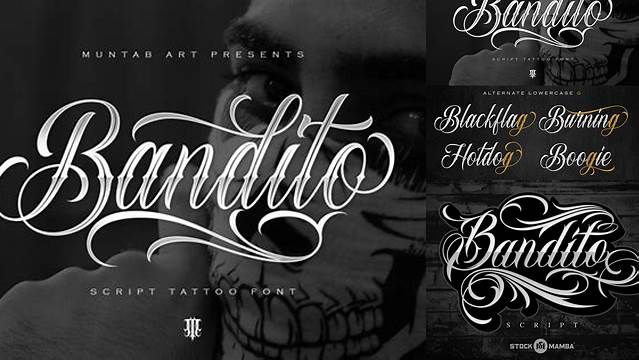
Free Bandito Tattoo Font Generator: Create Your Design
Hey guys! Ready to dive into the awesome world of tattoos, especially the rad Bandito style? If you're looking to create some killer designs, you've come to the right place! We're talking about a free Bandito tattoo font generator, your new best friend for crafting unique and eye-catching tattoo lettering. This guide will walk you through everything you need to know, from what makes Bandito fonts so cool to how to use a generator to bring your ideas to life. Get ready to unleash your inner artist!
H2: What Exactly is a Bandito Tattoo Font?
So, what's the deal with Bandito tattoo fonts? Well, picture this: a style that screams outlaw, rebellion, and a touch of old-school flair. Bandito fonts are all about that edgy, hand-drawn look, often with a bold, slightly rough appearance. They're inspired by the classic lettering found in biker culture, vintage signage, and even the art of graffiti. Think thick lines, sometimes a bit distorted, and a whole lot of attitude. These fonts are designed to make a statement, giving your tattoo a sense of power and individuality. Think of it as the visual equivalent of a roaring motorcycle or a dusty desert road.
Bandito fonts aren't just about aesthetics; they're about conveying a feeling. They often carry a sense of history, reflecting a time when craftsmanship and individuality were highly valued. You'll frequently see them used to represent themes like freedom, defiance, and the untamed spirit. These fonts have a unique ability to make your tattoo look authentic and timeless. Unlike clean, modern fonts, Bandito styles often have imperfections and inconsistencies, which actually enhance their appeal. This adds character and personality to your design, giving it a truly bespoke feel. It's like your tattoo has its own story to tell, with every curve and stroke of the font contributing to the narrative. The best Bandito fonts capture the spirit of the open road, the thrill of adventure, and the raw essence of life, all in a single glance.
Bandito fonts excel at grabbing attention. They’re designed to be bold and easily readable from a distance, so you can be sure that anyone who sees your ink will know exactly what it says, no matter where you are. You’ll find these fonts on everything from motorcycle club emblems to personalized apparel. These fonts are a top choice if you want your tattoo to make a bold statement. They often incorporate stylistic elements such as flourishes, shadows, and variations in line thickness, making them visually dynamic and engaging. Whether you're planning a classic script, a personalized quote, or even a full tattoo design, the right Bandito font can drastically improve the overall look. So, when choosing a Bandito font, look for options that resonate with your personality and the message you want to convey.
H2: Free Bandito Font Generators: Your Design Toolkit
Alright, let's get to the good stuff: free Bandito font generators! These online tools are total game-changers, allowing you to preview and customize Bandito fonts without spending a dime. They're super user-friendly, usually involving just a few clicks to type in your text, choose a font, and tweak the settings to your liking. Think of them as your personal tattoo studio, right at your fingertips. The beauty of these generators is the instant gratification. You get to see your chosen text in a variety of Bandito styles immediately, helping you narrow down the perfect look for your tattoo. Some generators even offer additional features, such as the ability to adjust the size, spacing, and even add effects like shadows or outlines. This customization is key to ensuring that your final design truly reflects your personal style and the specific vibe you're aiming for.
These tools cater to both experienced tattoo enthusiasts and complete beginners. You don't need any design experience to start creating amazing results. Simply enter your desired text, browse through the font options, and see what looks best. You can experiment with different combinations of fonts, sizes, and effects until you achieve a design that perfectly matches your vision. Free Bandito font generators are also a fantastic way to experiment before you commit to a final design. Try out various styles, check how they will look on different body parts, and ensure you find the perfect fit before booking your tattoo appointment. Many generators will allow you to download your design as an image, so you can easily share it with your tattoo artist. This makes the design process more collaborative, ensuring both you and your artist are on the same page. They are also incredibly cost-effective. Instead of spending money on expensive design software or paying a professional, you can create beautiful tattoo designs completely free of charge. It’s an excellent way to explore your creativity without financial risk, and these tools provide an accessible and fun way to get creative.
H3: Top-Rated Free Bandito Font Generator Websites
Okay, guys, let's get down to where the magic happens – top-rated free Bandito font generator websites. There are a ton of options out there, but a few stand out from the crowd due to their user-friendliness, font selection, and customization options. Here are some platforms that consistently deliver great results:
- Font Meme: This is a classic. Font Meme boasts a wide collection of fonts, including some excellent Bandito styles. You can preview your text, adjust sizes, and download your design with ease. They offer a great selection of pre-made Bandito fonts, and a very simple interface. Font Meme is the perfect choice for beginners, but also provides enough depth to let experienced designers get creative.
- DaFont: DaFont is a go-to resource for all things fonts, and their Bandito font selection is amazing. You can browse, download, and preview fonts right on the site. They also have a massive community of users who design and share fonts. This is the place to find a huge variety of Bandito-inspired fonts, and DaFont's user base ensures quality.
- BeFonts: BeFonts is another fantastic option for finding and downloading various fonts. They offer a user-friendly interface and a good selection of Bandito fonts perfect for tattoos. You can easily customize and download your design in a couple of clicks. This site's simplicity is part of its charm, making it easy for anyone to get started.
These are just a few examples, and the best way to find the perfect generator is to explore and find the one that works best for you. These tools will provide the fonts and designs you require to bring your tattoo ideas to life. All are free to use.
H2: Choosing the Perfect Bandito Font for Your Tattoo
So, you're ready to commit – how do you choose the perfect Bandito font for your tattoo? This decision goes way beyond just picking a font that looks cool. It's about finding the font that truly speaks to you and represents the message you want to convey. Consider the following factors:
- Font Style: Bandito fonts come in various styles. Some are thick and bold, while others are more delicate and intricate. Choose a style that matches the overall vibe of your tattoo. If you're going for a strong, masculine look, a bold font might be ideal.
- Readability: Make sure the font is easily readable, especially if your tattoo will be on a prominent part of your body. A complex font might look cool, but if people can't read it, it defeats the purpose. Make sure the text is readable from a distance.
- Size and Placement: Think about where the tattoo will be located and the size of the design. A smaller tattoo might look better with a simpler font, while a larger design can handle more complex details. The placement of the tattoo should also inform your font choice.
- Meaning and Symbolism: The font itself can add layers of meaning to your tattoo. Research the history and symbolism associated with different Bandito fonts to find one that aligns with your personal values and the message you want to communicate.
When choosing a Bandito font, it is essential to also consider your personal style and what the tattoo means to you. Do not choose based on trends but on personal significance. Take your time, experiment with different options, and don't be afraid to seek advice from your tattoo artist. They can provide invaluable insights on how a specific font will look and hold up over time. Ultimately, the best Bandito font for your tattoo is the one that you love and that tells your story.
H2: Step-by-Step: Using a Bandito Font Generator
Alright, let's get our hands dirty and go through the steps of using a Bandito font generator. Don't worry; it's super easy. Here's a general guide, although the specific steps may vary slightly depending on the generator:
- Choose Your Generator: Pick a free Bandito font generator from one of the websites mentioned earlier, or explore the many other options available.
- Enter Your Text: Type the text you want to use for your tattoo into the designated text box. Make sure to double-check your spelling!
- Select a Font: Browse through the available Bandito fonts. Most generators will provide a preview of your text in each font, so you can see how it looks.
- Customize (Optional): Many generators allow you to adjust the font size, spacing, and even add effects like shadows or outlines. Experiment with these settings to find the perfect look.
- Preview and Refine: Take a close look at the preview of your design. Make any necessary adjustments until you're happy with the result.
- Download: Once you're satisfied, download the design in a suitable format, such as PNG or JPG. This file can then be used to share with your tattoo artist.
Remember that some generators have specific download options. Consider the output quality that suits your final needs. Following these steps is often all it takes to create a killer tattoo design. It also helps to save your designs on a cloud service or drive, in case you need them later. These steps provide a basic guideline to get you started. Remember that practice makes perfect, and experimentation is key to finding the perfect design.
H2: The Tattoo Artist's Perspective: Working with Bandito Fonts
Alright, let's take a peek into the tattoo artist's world and see how they work with Bandito fonts. As an artist, they play a critical role in transforming a digital design into a real, long-lasting tattoo. Here's what you should know:
- Communication is Key: The most important thing is to clearly communicate your ideas to your tattoo artist. Provide them with the font design you've created, any reference images, and a clear idea of what you want.
- Font Adaptations: Your tattoo artist might need to make slight adjustments to the font to make it work well as a tattoo. They will consider factors like the size, placement, and your skin type.
- Professional Input: Listen to your tattoo artist's advice. They're the experts and can offer valuable suggestions to improve your design. They will ensure the final result is not only visually appealing but also suitable for tattooing.
- Stencils and Preparation: Tattoo artists use stencils of your design to transfer it onto your skin. A high-quality stencil is crucial for a perfect result. The artist will carefully prepare the stencil before transferring it.
Working closely with your artist is essential for achieving the best possible outcome. It helps to be open to their suggestions and trust their expertise. They'll be able to translate your digital design into a stunning, permanent piece of art. Don’t hesitate to ask questions or request adjustments during the consultation phase. The more information you can provide, the better the end result will be.
H3: Getting Your Bandito Font Tattooed: Tips for Success
So, you've designed your Bandito font, found a great artist, and you're ready for your tattoo. Congrats! Here are some key tips to ensure the process goes smoothly and that you're thrilled with the final result:
- Choose a Reputable Artist: Do your research and choose a tattoo artist with experience in the style you want. Check out their portfolio and read reviews. An artist specializing in this style understands the intricacies of Bandito fonts. They will ensure that your tattoo has the authentic look you are going for.
- Placement Matters: Discuss the placement of your tattoo with your artist. Certain areas of the body are better suited for Bandito fonts. Think about how the font will look over time, including potential stretching or distortion. Your tattoo artist can give you expert guidance on the best placement.
- Prepare Your Skin: Before your appointment, make sure your skin is healthy. Moisturize and avoid sun exposure. Hydrated skin is essential for your tattoo to heal quickly and well.
- Follow Aftercare Instructions: Once you get your tattoo, follow your artist's aftercare instructions carefully. This will ensure your tattoo heals properly and looks great for years to come. Proper care will keep your tattoo looking fresh and vibrant.
Following these tips will help make your tattoo experience a positive one and ensure that you're proud of your new ink. By doing your research, communicating with your artist, and following their instructions, you'll be well on your way to a stunning, personalized tattoo. The end goal is a tattoo that looks amazing and tells your unique story.
H2: Bandito Font Tattoo Styles: Exploring the Options
Bandito fonts encompass a variety of styles, each with its own unique character. Understanding these different styles will help you choose the perfect font for your tattoo. Here are some popular variations:
- Classic Script: Think elegant, flowing letters with a slightly edgy feel. This style is versatile and works well for quotes, names, and dates. Classic scripts are often favored for their timeless appeal.
- Block Letters: These fonts are bold and impactful, perfect for making a strong statement. They typically have thick lines and a strong, masculine vibe. Block letters are a great choice for legibility.
- Cholo Style: This style is often associated with the Chicano culture, with distinct, stylized letterforms. They often include decorative elements like swirls and shadows. Cholo styles can add a layer of cultural meaning to your design.
- Graffiti-Inspired: Inspired by street art, these fonts are raw and expressive, with a bold, rebellious feel. They often include drips, splatters, and other visual elements. Graffiti styles are perfect for those who want an edgy, urban look.
When selecting a Bandito font style, it is important to know what elements resonate with you. Experimenting with different styles will help you find the one that best expresses your unique style and message. Don’t be afraid to blend different styles to create a completely custom design. Finding the perfect Bandito font style is just the beginning of creating an awesome tattoo.
H3: Bandito Font Tattoo Design Ideas and Inspiration
Looking for inspiration for your Bandito font tattoo? Here are a few ideas to get your creative juices flowing:
- Quotes and Sayings: Immortalize your favorite quotes, inspirational sayings, or personal mantras in a cool Bandito font. Choose a quote that has deep personal meaning for you. This is a classic choice, allowing you to carry your wisdom with you.
- Names and Dates: Get the names of loved ones or significant dates tattooed in a Bandito font. This is a timeless way to honor family, friends, or important life events. This adds a personal touch to your tattoo.
- Custom Logos and Designs: Create a unique logo or design that represents your personal brand, interests, or passions. This is a great way to show off your unique style and personality. Custom designs are a fantastic way to express yourself.
- Biker-Themed Tattoos: Incorporate Bandito fonts into biker-themed designs, such as motorcycle club emblems, tribal art, or vintage-style illustrations. Bandito fonts perfectly match biker culture.
The possibilities are endless. Browse tattoo galleries, search online, and look to your own life experiences for inspiration. Be sure to combine your ideas with different fonts to bring your creative ideas to life. Remember, the best tattoo is the one that is meaningful to you. So, take your time, do your research, and create a design that you'll love for life.
H2: Beyond the Basics: Customizing Your Bandito Font
Ready to take your Bandito font design to the next level? Let's talk about customization! Even with a free generator, there are ways to personalize your font and make it truly unique. Here are some ideas:
- Font Combination: Experiment with combining different Bandito fonts for a unique look. Try mixing a bold headline font with a more delicate script for the body of your text. This can create a dynamic, eye-catching design. This combination will ensure your design has depth and appeal.
- Adding Embellishments: Consider adding flourishes, swirls, or other decorative elements to your font. These can enhance the overall look. Embellishments are a great way to add personality.
- Color and Shading: While most generators focus on black and white designs, you can often add color and shading using other software. This adds depth and detail. Use shading and color to bring your design to life.
- Working with a Designer: If you want a truly custom font, consider working with a graphic designer. They can create a unique Bandito font just for you. A designer can ensure your design is perfectly suited to your needs.
Customization can add a layer of uniqueness to your tattoo and ensure that it’s completely you. Take time to experiment and don’t be afraid to get creative. Using a font generator is the perfect starting point. The next step is working out how to personalize your design.
H3: Software and Tools for Further Customization
Ready to take your Bandito font customization to the next level? Here are some software and tools that can help you:
- Adobe Photoshop: Photoshop is a powerful image editing program that can be used to add effects, colors, and shading to your font design. It also allows you to work with layers to create more complex designs. Photoshop gives you complete control over every aspect of your design.
- Adobe Illustrator: Illustrator is a vector graphics editor that's ideal for creating and modifying fonts. You can use it to create custom lettering, add flourishes, and resize your font without losing quality. Illustrator is a must-have for any serious design work.
- Inkscape: Inkscape is a free and open-source vector graphics editor. It's a great alternative to Adobe Illustrator and offers similar features. Inkscape is an accessible option for anyone on a budget.
- GIMP: GIMP is a free and open-source image editor. It's a great alternative to Adobe Photoshop and offers a wide range of tools for image editing and manipulation. GIMP can meet all your essential design needs.
These tools can provide you with the tools you need to customize your Bandito fonts, and make them truly your own. The best approach is to explore different software to see which one fits best with your needs. Once you get familiar with the design process, you'll be able to make almost anything!
H2: Legal Considerations: Font Licensing and Tattooing
It is important to consider the legal aspects of using Bandito fonts for tattoos. Here's what you need to know:
- Font Licenses: Most fonts are protected by copyright. Before using a font for a tattoo, make sure you understand the font's license. Some fonts are free for personal use, while others require a commercial license. Commercial licenses are needed when the tattoo is for profit.
- Font Foundries: Many font designers offer licenses that are specific for tattooing. Check with the font foundry or designer to determine their policy. Font foundries often provide detailed licensing information.
- Avoiding Copyright Infringement: Ensure that you do not infringe on the copyright of the font designer. Always obtain the proper licenses before using a font commercially. Infringement can lead to legal trouble.
- Tattoo Artist Responsibility: Your tattoo artist is typically responsible for ensuring they are using fonts legally. They will often know the rules. Always discuss the font's license with your artist.
By understanding the legal aspects of using fonts, you can avoid any potential problems. Make sure to respect the rights of font designers to protect your tattoo design, so that your tattoo is forever yours. It helps to do your research and be sure you are in compliance with copyright regulations.
H2: Common Mistakes to Avoid When Designing a Bandito Font Tattoo
To ensure your Bandito font tattoo is a success, avoid these common mistakes:
- Choosing the Wrong Font: Select a font that does not suit the message. Choose a font that's difficult to read or that does not reflect your personal style. It is very important to choose a font that resonates with you.
- Ignoring Readability: Ensure that the font is easily readable, especially if it's on a highly visible part of your body. Avoid fonts that are too intricate. Make sure people can read your message.
- Overcomplicating the Design: Avoid adding too many details or elements, especially in smaller tattoos. A simple design is often more effective. The design should not be too cluttered.
- Rushing the Decision: Don't rush your decision about the font. Take your time to explore different fonts. Research options to ensure you are satisfied.
- Failing to Consult with Your Artist: Always consult with your tattoo artist. Their expertise and experience are invaluable. They will help you bring your design to life.
By avoiding these pitfalls, you can create a stunning Bandito font tattoo that you'll be proud to display for years to come. Take your time to ensure that your vision becomes a reality, and you will have no regrets.
H2: Aftercare and Maintenance for Your Bandito Font Tattoo
Once you've gotten your amazing Bandito font tattoo, you'll need to take care of it to ensure it heals properly and looks its best for years to come. Here are some essential aftercare tips:
- Follow Your Artist's Instructions: Your tattoo artist will provide specific aftercare instructions. Follow these guidelines carefully. They know the best way to care for your new tattoo.
- Keep it Clean: Gently wash your tattoo with mild soap and water, and pat it dry. Avoid harsh soaps or scrubbing. Cleaning is essential to remove bacteria.
- Moisturize: Apply a thin layer of fragrance-free, hypoallergenic lotion. This helps keep the skin hydrated. Hydration helps it heal.
- Avoid Sun Exposure: Protect your tattoo from direct sunlight. Sun exposure can fade your tattoo. This can cause damage.
- Avoid Picking or Scratching: Resist the urge to pick or scratch your tattoo. This can damage the skin and lead to infection. Picking could lead to scarring.
Proper aftercare is crucial for a beautiful, long-lasting tattoo. Remember to be patient and listen to your body. Your tattoo will look great.
H2: Bandito Font Tattoo Placement Ideas
Deciding on the perfect spot for your Bandito font tattoo can be just as important as choosing the font itself. Here are some popular placement ideas:
- Forearm: A great spot for quotes, names, or smaller designs. Forearm placement offers good visibility and is perfect for your tattoo.
- Upper Arm: Provides more space for larger designs. The upper arm has flexibility, offering the best options for creativity.
- Chest: Perfect for a statement tattoo or a significant quote. Your chest offers a large canvas for art.
- Back: Ideal for large-scale designs. The back allows for various designs.
- Calf: Great for vertical designs or names. Your calf gives you a vertical option.
The ideal placement depends on the size and style of the font. Think about visibility. Consider how the font will look as your body ages. Talk to your tattoo artist about the best location.
H2: Bandito Font Tattoo Styles for Different Genders
Bandito fonts are versatile and can be tailored to suit any gender identity. Here's how to approach them:
- Masculine Styles: Bold, strong fonts are ideal for guys, with thicker lines and a rugged look. Boldness will help communicate masculinity.
- Feminine Styles: Incorporate softer lines and decorative elements to enhance femininity. This allows for grace in your design.
- Gender-Neutral Designs: Choose fonts that blend both masculine and feminine elements for a unique look. You have freedom of expression.
The most important thing is to choose a font that represents your individual style. The style of the font is about the person wearing it. This provides you with freedom of expression. Personalize your font.
H2: Resources and Inspiration for Bandito Font Designs
Looking for more resources and inspiration? Here are some places to explore:
- Tattoo Galleries: Browse online tattoo galleries like Pinterest. These galleries are great to find ideas.
- Font Websites: DaFont and Font Meme offer a great selection of Bandito fonts. Font sites are perfect for font exploration.
- Social Media: Explore Instagram and other social media platforms for inspiration. Social media offers a world of creativity.
- Tattoo Artists' Portfolios: View the portfolios of tattoo artists specializing in Bandito fonts. Experts can inspire you.
By tapping into these resources, you'll have a ton of inspiration. These resources can give you the inspiration you are looking for. Have fun looking.
H2: The Future of Bandito Font Tattoos
The world of Bandito font tattoos is ever-evolving, with trends and styles changing all the time.
- Emerging Styles: The trend is leaning towards a mix of traditional and modern styles. There are new and exciting things to explore.
- Customization: Personalization is more important than ever. This allows for unique designs.
- Technology: Digital tools and font generators are becoming increasingly important. Technology allows you to create new designs.
The future is bright. These trends help to make your tattoo unique. Embrace change.
H2: Bandito Fonts vs. Other Tattoo Styles: A Comparison
Let's compare Bandito fonts with other popular tattoo styles to see what makes them unique:
- Bandito Fonts: Bold, edgy, and often with a vintage feel. Bandito fonts are full of attitude.
- Script Fonts: Elegant and flowing, perfect for quotes and names. Script fonts can have grace.
- Traditional Tattoos: Bold lines and vibrant colors. Traditional tattoos are classic.
- Minimalist Tattoos: Simple designs with clean lines. Minimalist tattoos are simple.
Each style has its own appeal. Choose the one that best reflects your personality. Finding the right style is important.
H3: The Cultural Significance of Bandito Fonts
Bandito fonts carry cultural weight.
- Historical Roots: They reflect classic outlaw styles. Bandito fonts tell a story.
- Symbolism: These fonts often represent freedom and rebellion. This allows for a unique meaning.
- Subcultures: Bandito fonts are popular in biker, Chicano, and other subcultures. These fonts are part of the culture.
These fonts can have layers of meaning. Know what you are looking for. Find a font that fits your personality.
H2: Maintaining the Legibility of Your Bandito Font Tattoo Over Time
Here are some ways to keep your Bandito font tattoo looking good over time:
- Sun Protection: Shield your tattoo from the sun. Sun damage can happen.
- Proper Moisturizing: Hydrate the skin around your tattoo. Proper care is important.
- Touch-Ups: Get touch-ups from your artist if necessary. Your artist knows what to do.
With proper care, your Bandito font tattoo will last for years. Remember this. It's all about keeping your tattoo looking fresh.
H2: The Psychology Behind Choosing a Bandito Font Tattoo
Why do people love Bandito fonts? Here's a look at the psychology:
- Rebellion: Bandito fonts express a desire for freedom. This style has attitude.
- Individuality: These fonts celebrate being unique. You can be yourself.
- Nostalgia: Bandito fonts connect to the past. They can make you feel good.
Your choice says a lot about you. Consider your motivations. Be honest with yourself.
H2: Bandito Font Tattoos and Body Modification Trends
Bandito font tattoos fit into larger trends:
- Personalization: People want tattoos that are unique. They choose styles that represent themselves.
- Self-Expression: Tattoos are a form of self-expression. Be proud of yourself.
- Artistic Styles: Bandito fonts are now more popular than ever. You can choose the art you love.
Bandito fonts are part of a movement. There are more styles than ever. Express yourself.
H2: Common Questions and Answers About Bandito Font Tattooing
Let's answer some common questions:
- Are Bandito fonts good for beginners? Yes. They are easy to get.
- How long do Bandito font tattoos last? They last for years. Care is important.
- How much do Bandito font tattoos cost? The cost varies.
Be sure to ask your artist. Ask them anything. They are there to help.
H2: Showcase of Stunning Bandito Font Tattoo Examples
Here are some stunning examples. These should provide some inspiration:
- Classic Quotes: Bold words. Quotes are iconic.
- Names and Dates: Personal, and special. Names are forever.
- Custom Designs: Unique logos. Designs can be amazing.
These examples are great. Use them as inspiration. Be creative.
H2: The Future of Free Bandito Font Generators
Free Bandito font generators are here to stay. They can become more:
- User-Friendly: Improved features. The features will improve.
- More Fonts: There will be more font options. More options are a good thing.
- Integration: There will be better social sharing. Sharing will be easier.
Expect continued improvements. You will benefit from these tools. They are good for everyone.